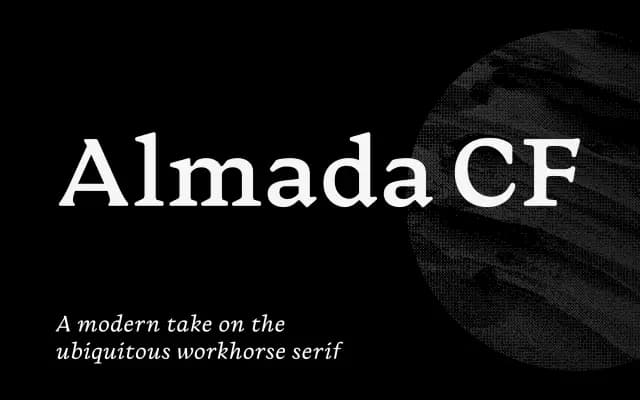
Almada CF
A text serif family with five weights and italics, taking cues from the utilitarian office serifs of the 1970s while adding considered detail for display use.
Long, purposeful serifs and careful spacing give Almada CF a steady, legible texture for extended reading, while unexpected details add rhythm at larger sizes. The family spans Extra Light to Extra Bold with matching italics and variable font files, covering Latin, Cyrillic and Greek scripts across more than thirty languages. It sits comfortably in editorial, document and publishing contexts where reliability matters more than novelty.
A text-focused serif drawing on the workhorse office serifs of the 1970s, with long purposeful serifs and carefully tuned spacing suited to extended reading — characteristics typical of transitional or old-style influenced text serifs.